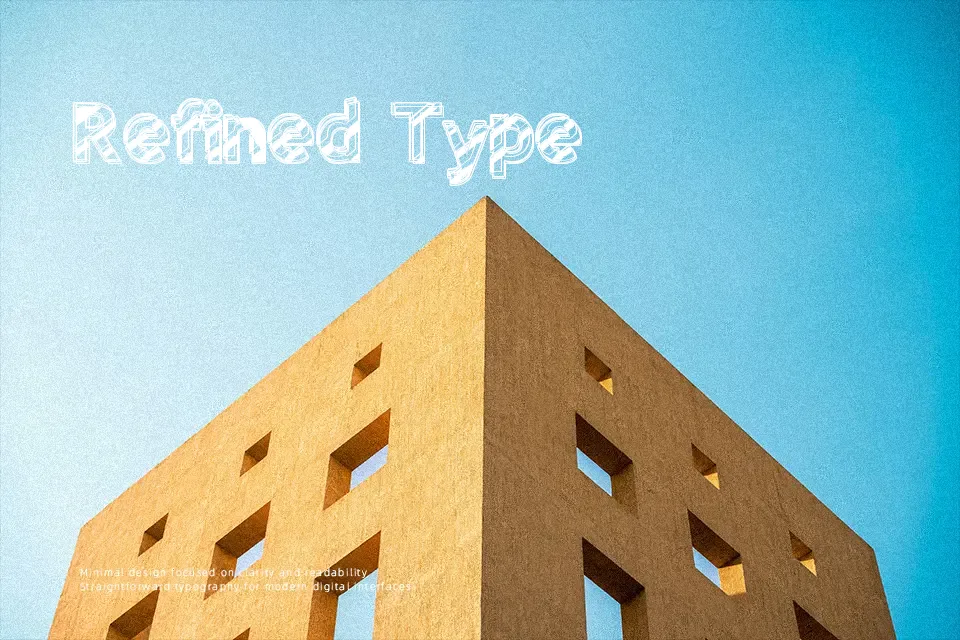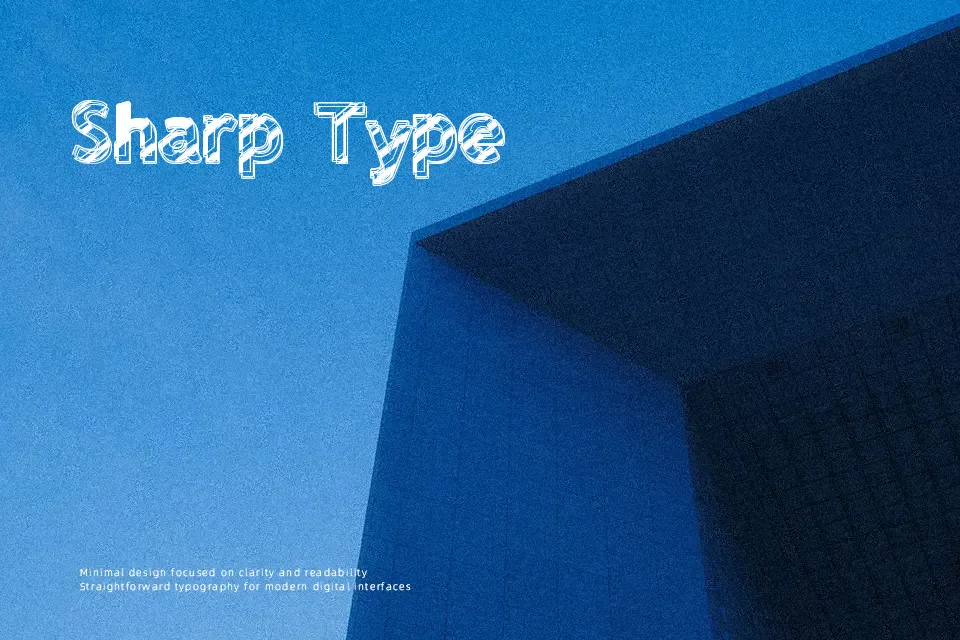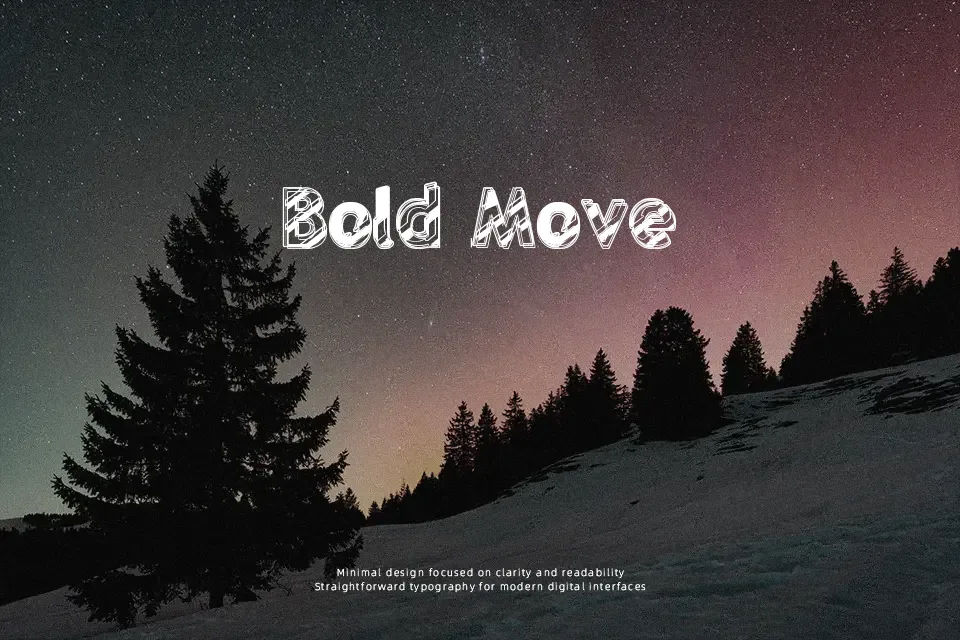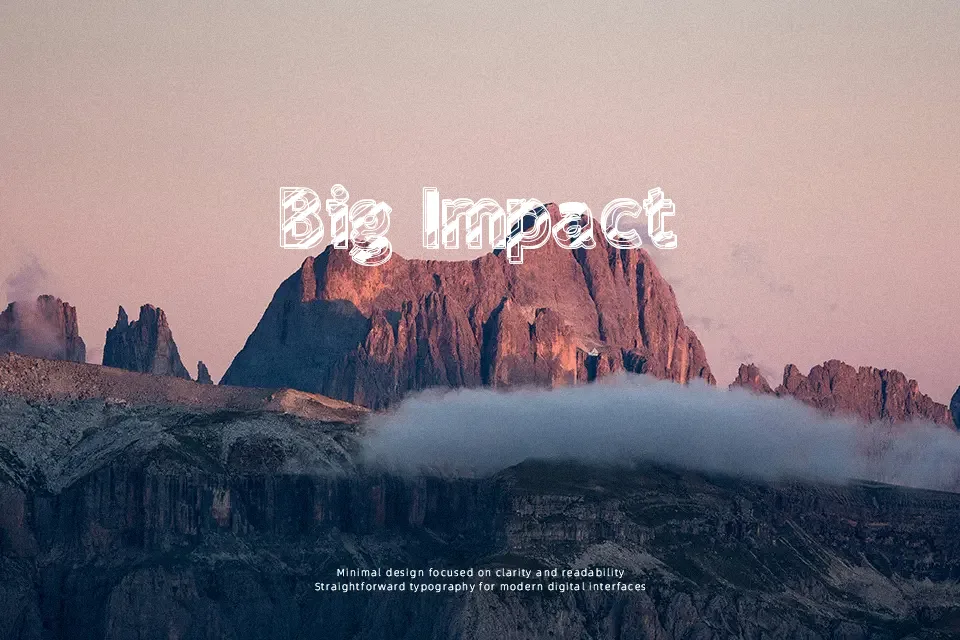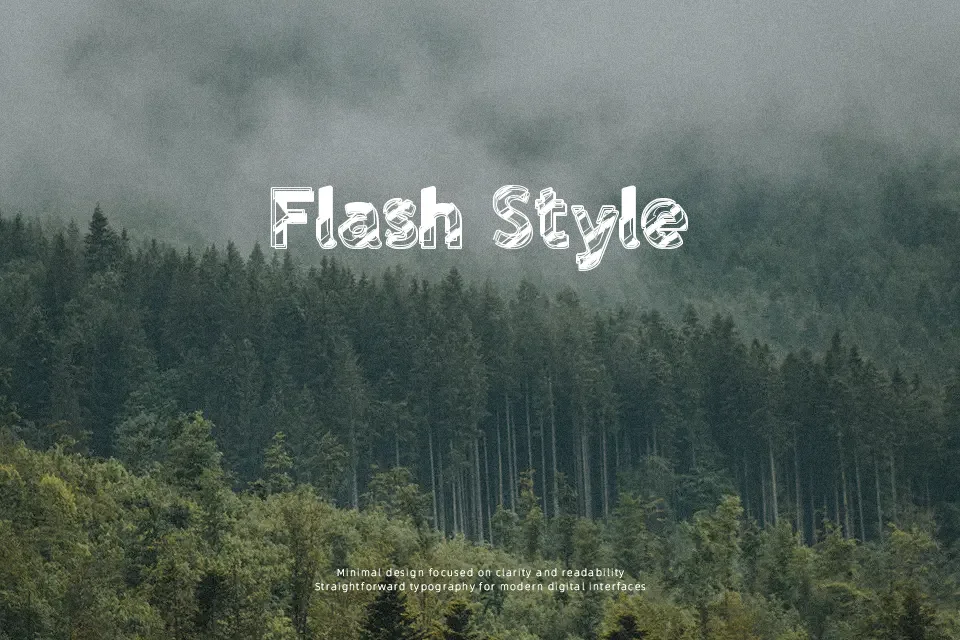
Reflet Électrik Font
Reflet Électrik Font introduces a highly energetic aesthetic with its structured, decorative display letterforms. The typeface carries a bold visual presence, shaped by distinct strokes that create an electric, dynamic rhythm across the baseline. Because of its intense and elaborate styling, the spacing helps maintain clarity in larger headlines and vibrant focal points. This design performs best when utilized for music festival posters, high-impact gaming logos, and futuristic branding packages. However, the decorative details become less effective at smaller sizes, making it less suitable for long paragraphs or dense body text. Overall, the letterforms offer an artistic, eye-catching approach that instantly elevates creative projects requiring a strong, modern identity.
Best For: music festival posters, futuristic branding, esports team logos, large website headlines
Not Ideal For: long paragraph text, small interface labels, dense editorial layouts
Perfect for branding, gaming, and headline, with a dynamic and decorative style.